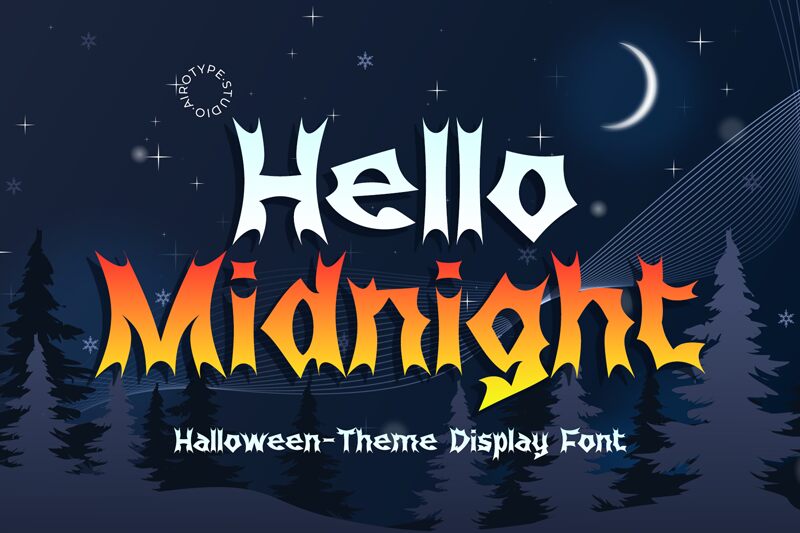
Hello Midnight font by Airotype Studio is a halloween-themed all-caps typography that is truly intriguing. It has sharp irregular edges that resemble those of spooky letters while maintaining a very lovely artistic aspect. Letters are bold and therefore have the ability to stand out as they slightly vary in height. Actual pen ink splashes are noticed around this font.
A great asset for your Halloween-themed designs, Hello Midnight has many potential uses. This free gothic style font can be added to posters, flyers, greeting cards, book covers, video games and mobile applications. It is well-suited for food packaging items and especially candy and snacks ones for kids as well as adults!
Hello Midnight